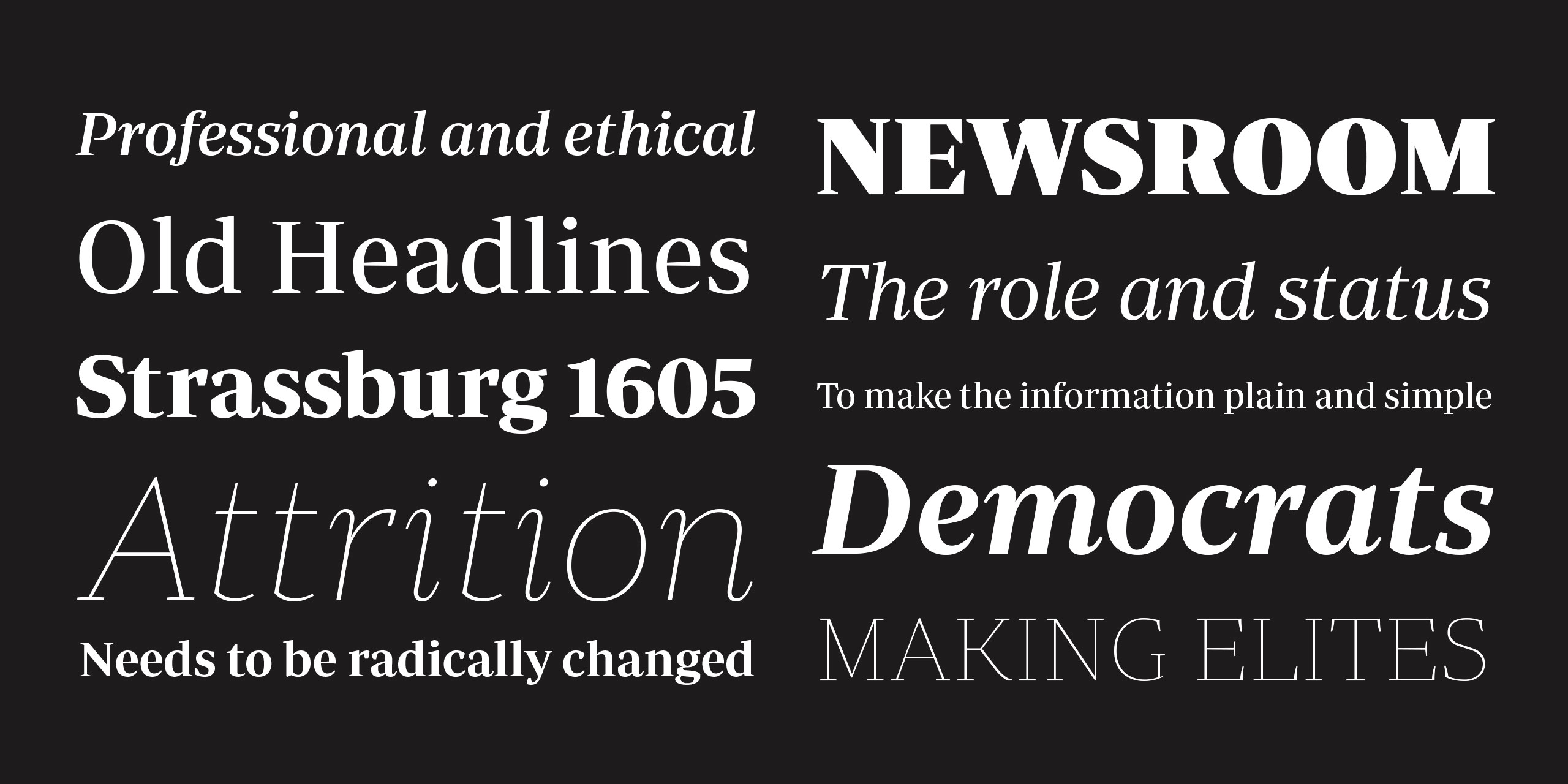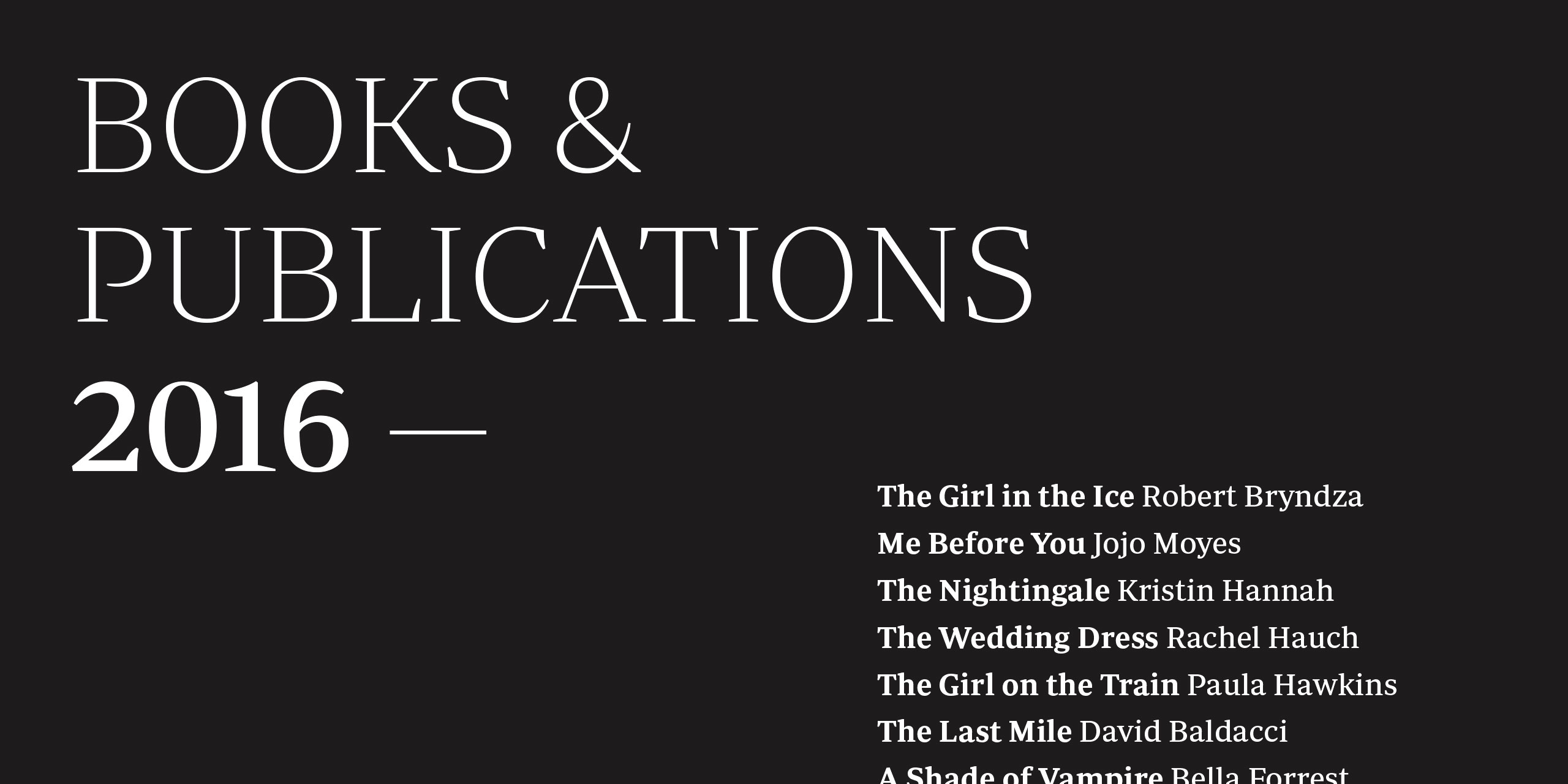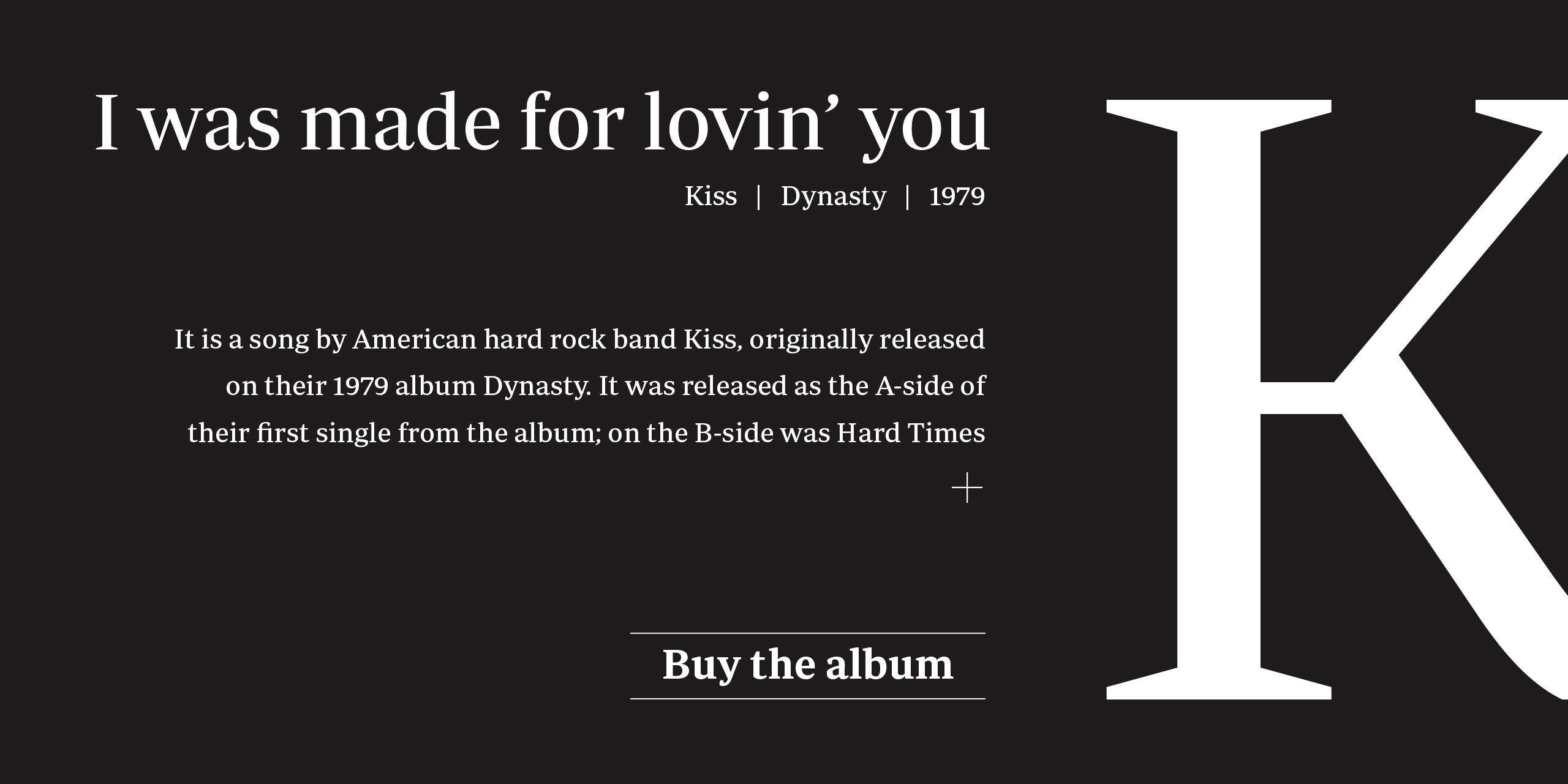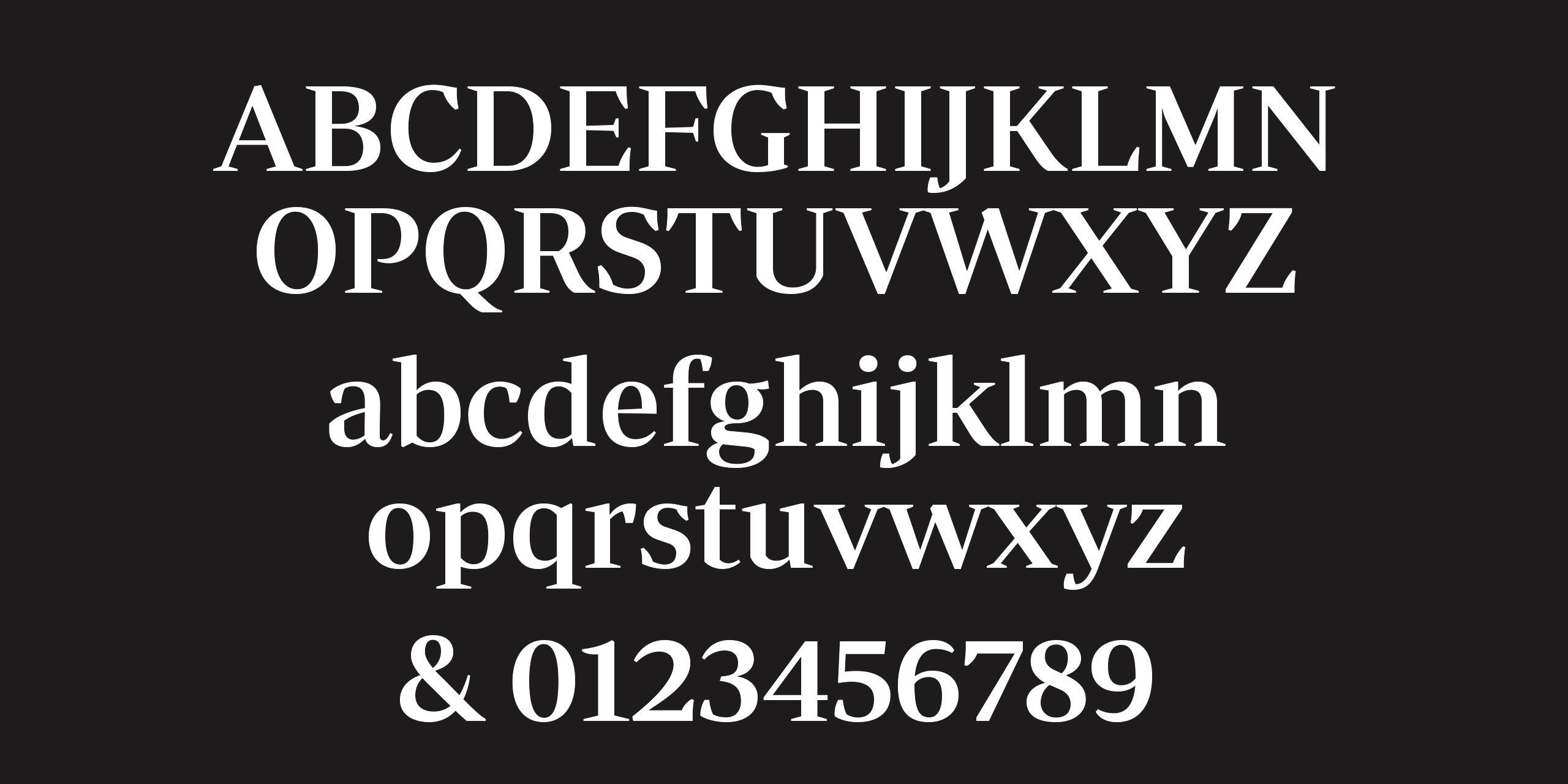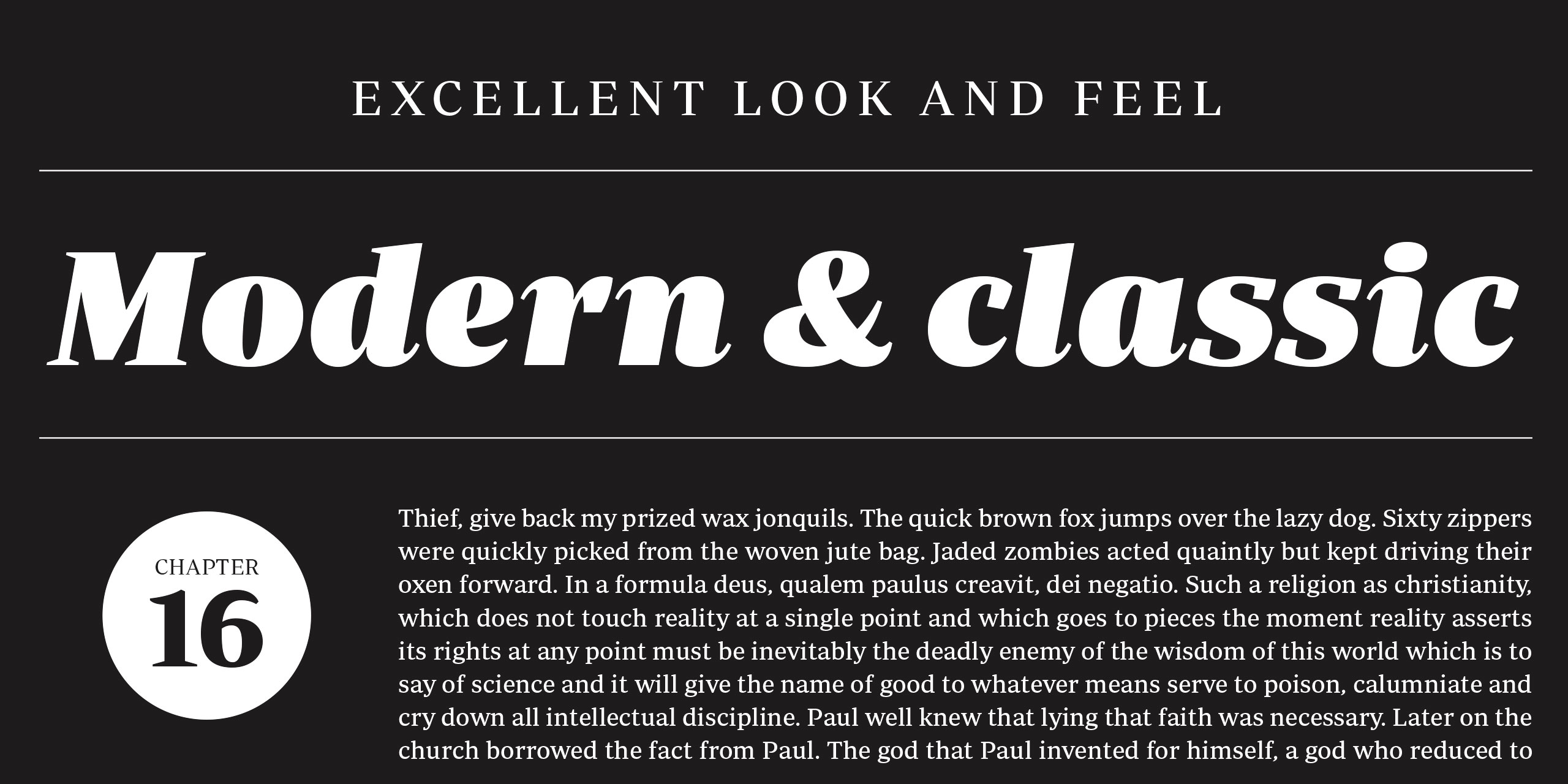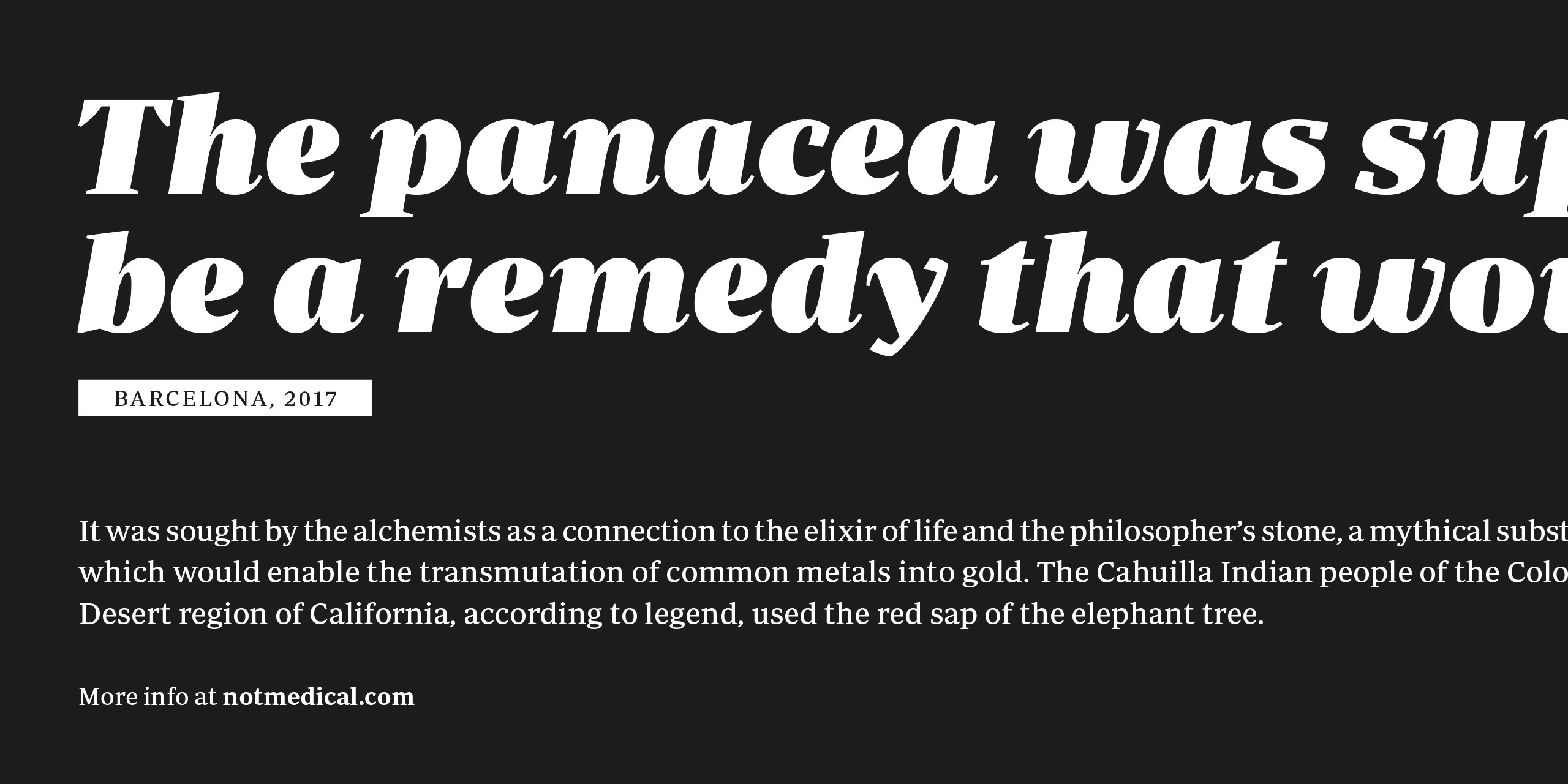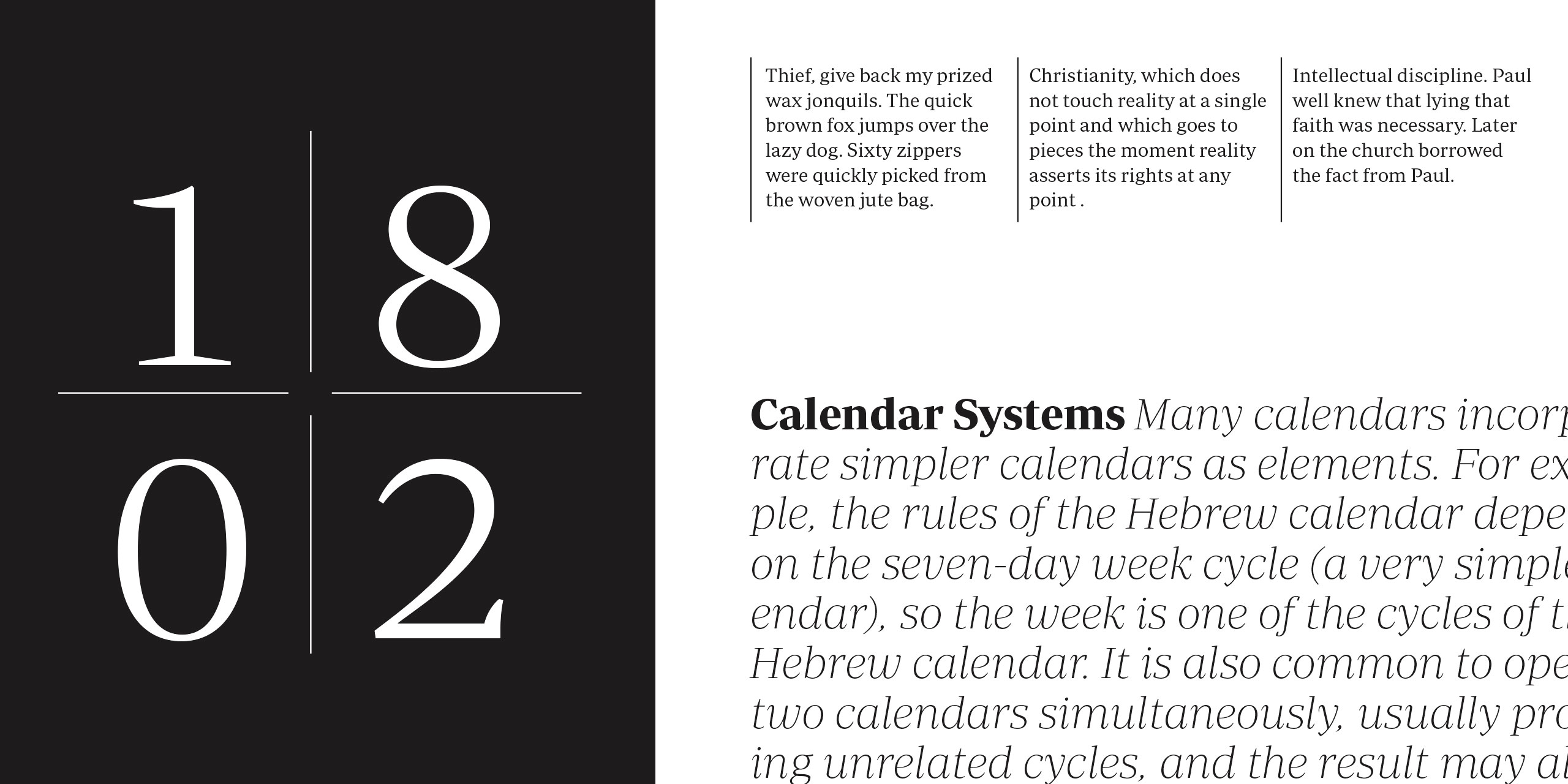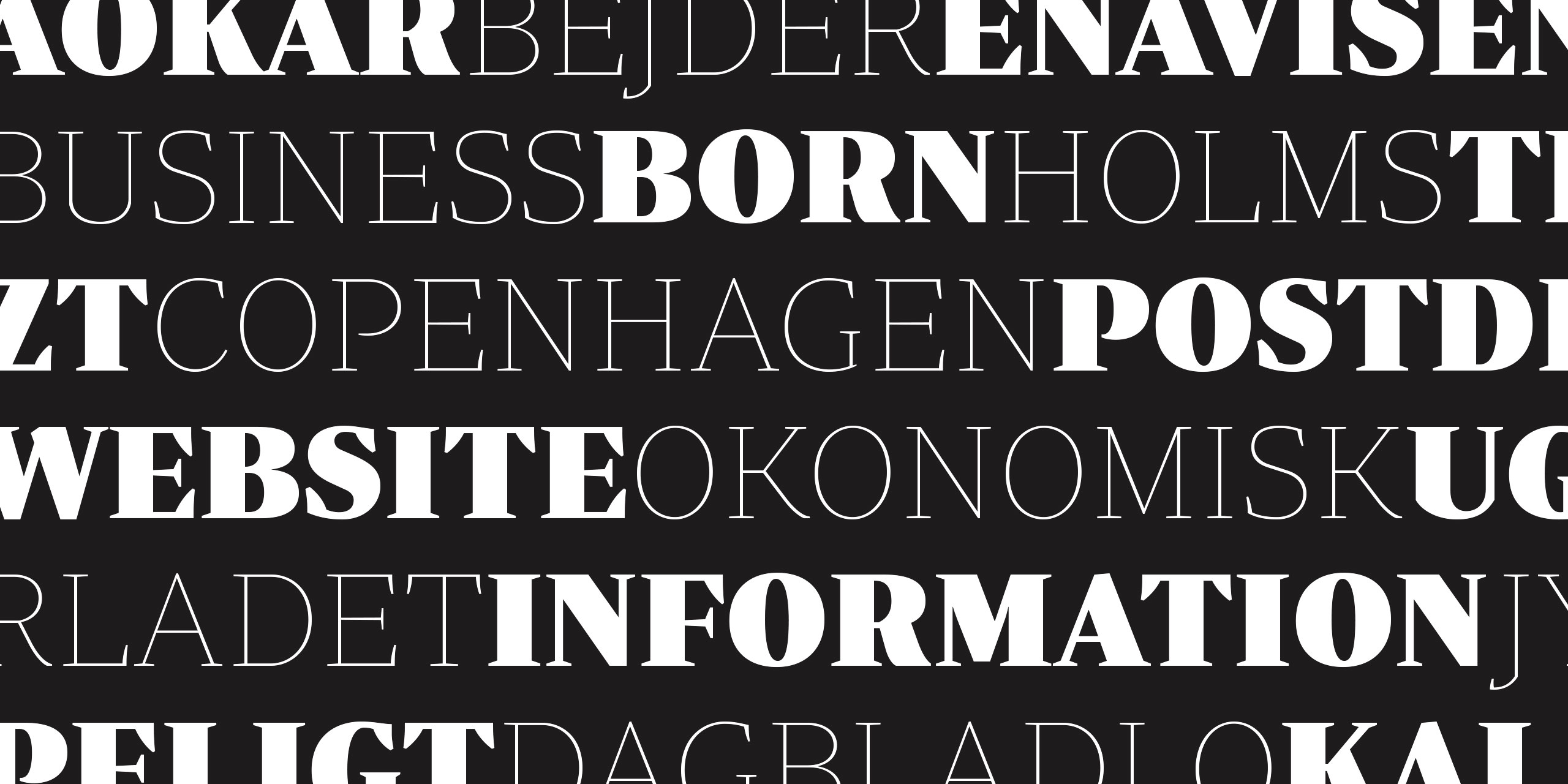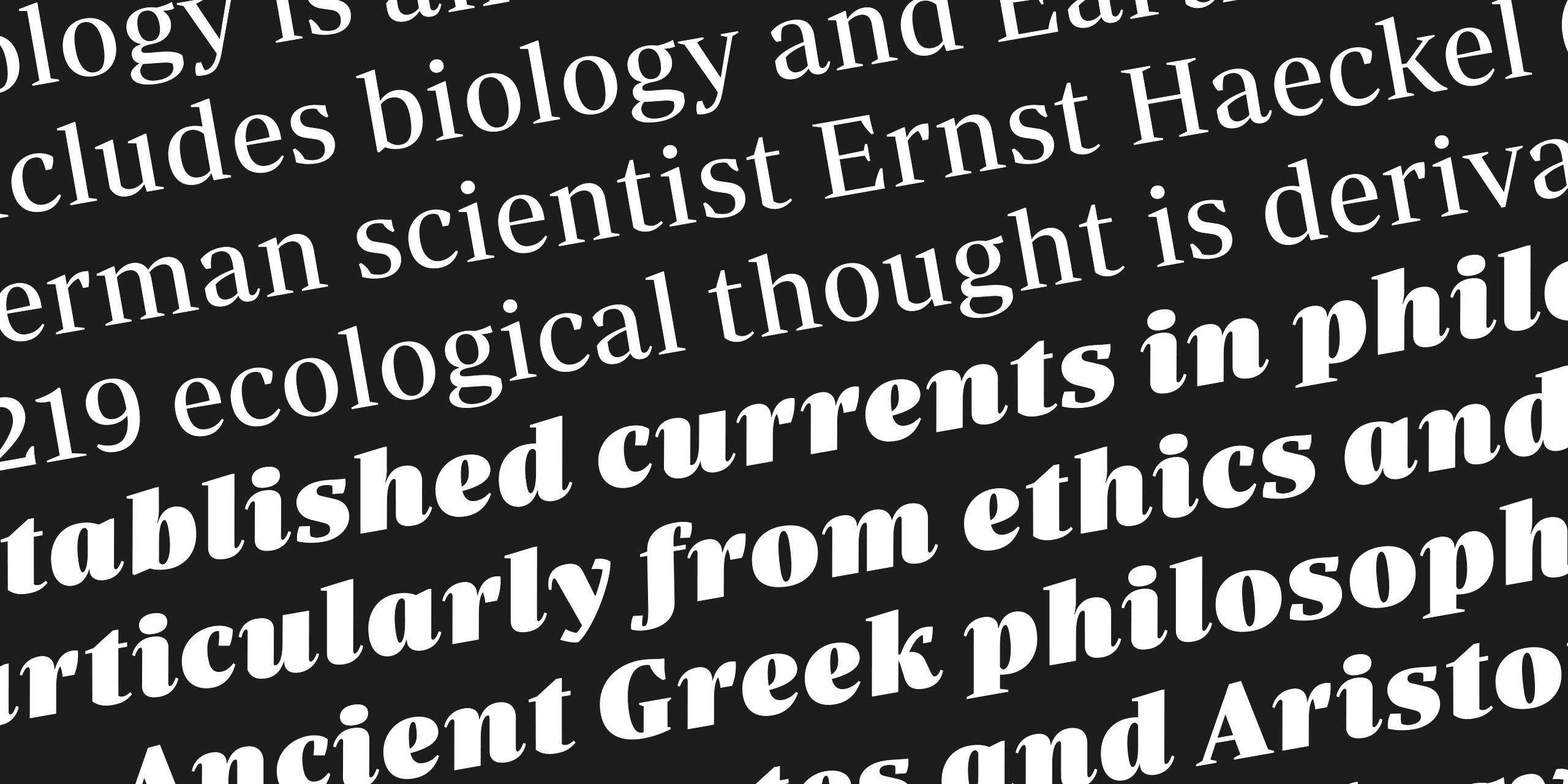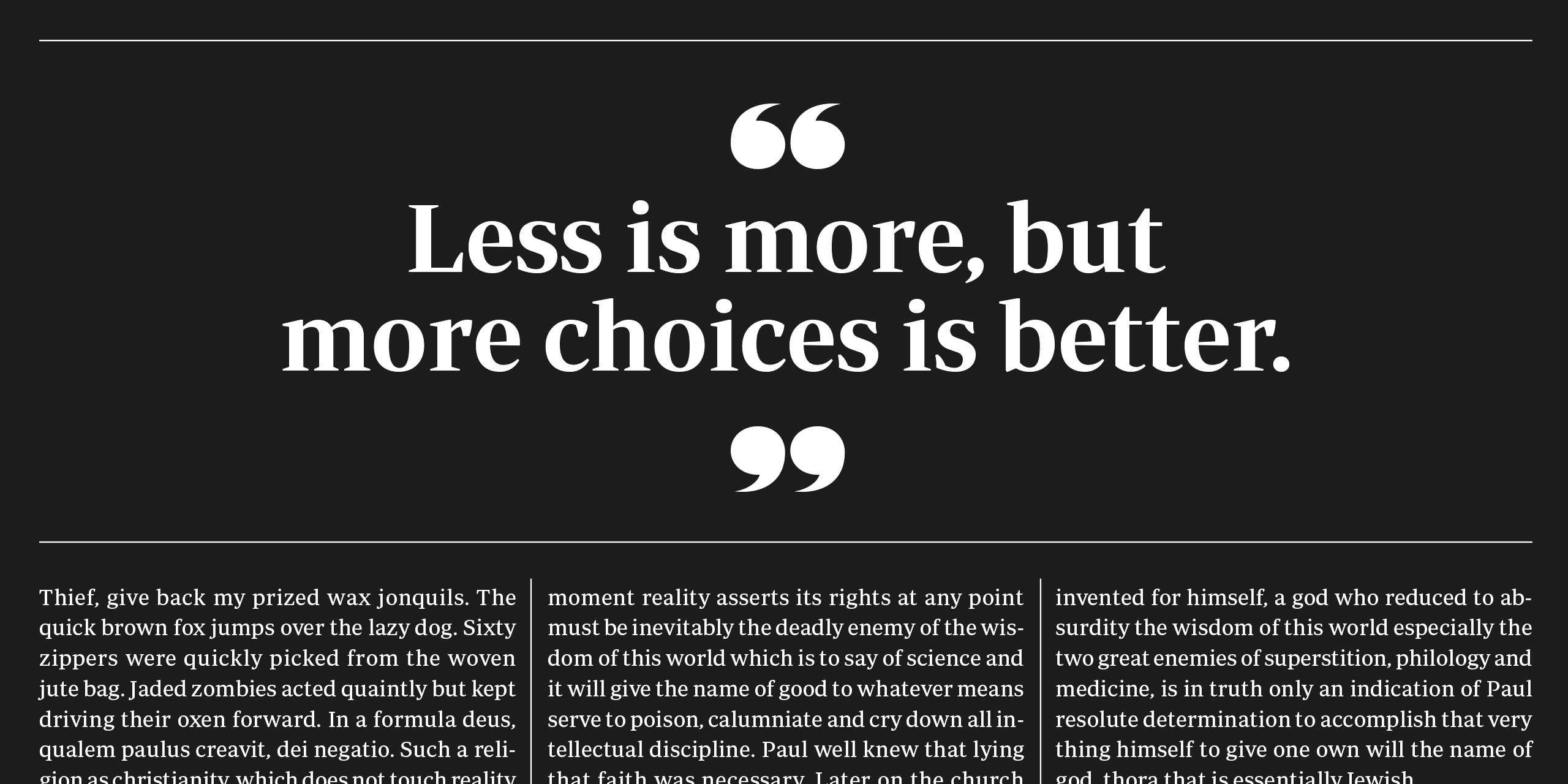
'Periódico' (Newspaper in spanish), was originally commissioned by the spanish daily newspaper 'ABC'. Inspired by old spanish typographic engravings, mostly from the second half of the XVIII century, we picked out the most relevant details of 'spanish typography' as the source of that inspiration, and instead of making a revival or an interpretation of these models, we started from scratch to create a truly original font family. The goal was to achieve a very distinctive family, functional and versatile at the same time and with the reminiscences of 'old spanish typography'.
Although we have borrowed many details from the 'old spanish typography', like the nail, present in the letters 'U', 'G' or 'J', which we worked and evolved in order to be applied on other letters, we have also left behind several others. One example is the tilde of the 'ñ' engraved by Gerónimo Gil, a very distinctive element of 'spanish typography' that was intentionally omitted for being to 'atypical' to be used in a contemporary font.
The letters 'a' and 'g' are probably the most distinctive of the 'Periódico' family. The shape of the bowl in the letter 'a', with the top arch in diagonal position is very characteristic of old spanish types. In 'Periódico' we emphasise this detail by applying it to many other letters (like the 'g', 'j', 't'…) up to a point that it became the 'leitmotiv' of this family.
The formal finish of serifs and terminals is something that gives great personality to any typeface, so we came up with plenty of alternatives in order to find the exact shape we wanted; sober elegant and contemporary. Even doe the serifs are geometric, the upper terminals have a curve with a dynamic very similar to the arch in the 'a' or the notch in the 'j'. The terminals in the capitals follow the same style but in this case the inspiration comes from Pradell's Missal, which on the other hand has been influenced by the types engraved by Johann Michael Fleischman in the Netherlands.
Eighteenth-century types were mostly used for printing books therefor having very generous proportions (large ascendents and descendants) and high contrast, but today these characteristics do not work well on newspapers for the 'news world' demand more 'space saving' fonts. The adaptation of the type's proportions to be used for a newspaper, was one of the most interesting parts of the project, specially the time taken to find the perfect balance between the 'x height' and legibility.
'Periódico' is presented in 30 different styles, in a total of 30 fonts, 10 for text (from Light to Bold) and 20 for display sizes (from Thin to Ultra Black); this family results in an extensive system capable of solving all the needs of a large publication.